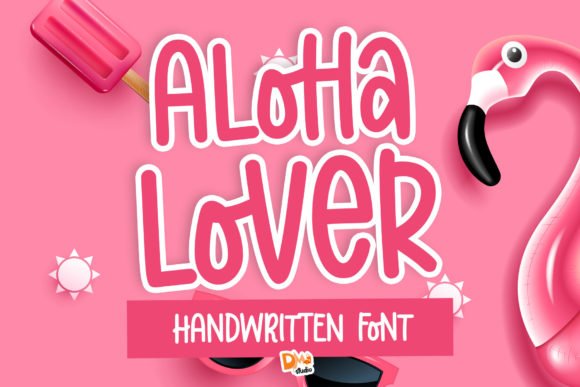
Aloha Lover Font: Bringing Whimsy to Your Designs
Do you remember the feeling of sitting at your desk as a child, scribbling away in your notebook, and feeling like you were creating something truly special? The lines were wobbly, the letters were uneven, and the colors were bold – and yet, it was perfect just the way it was. That sense of unbridled creativity is what inspired the Aloha Lover Font, a playful and quirky handwritten font that embodies the spirit of childhood imagination.
The Aloha Lover Font is the perfect choice for any children’s activity or school project, bringing a touch of authenticity and whimsy to your designs. Whether you’re a designer looking to add some personality to a children’s book or a parent wanting to make your child’s homework stand out, this font is a valuable addition to your toolkit.
- Unique Characteristics: The Aloha Lover Font features a unique, hand-drawn design with a mix of playful and elegant elements, making it perfect for creating a relaxed, tropical atmosphere in your designs.
- Script and Regular Styles: This font includes both a script and regular style, allowing you to choose the perfect version to match your design needs.
Aloha Lover Font Review
Overall, I found the Aloha Lover Font to be a visually appealing and quirky choice for a specific type of project. ✨ Its laid-back, tropical vibe instantly evokes the feeling of a beachy getaway, which can be perfect for branding or promotional materials targeting a laid-back audience.
The font’s unique character set, which includes symbols and icons, adds an extra layer of visual interest and can be a great way to add personality to a design. ✨ I also appreciated the fact that the font is highly legible, even at smaller sizes, which makes it a good choice for use in a variety of contexts.
However, I did encounter a few limitations with the Aloha Lover Font. ⚠️ Firstly, the font’s lack of versatility means that it may not be the best choice for projects that require a more formal or professional tone. Additionally, the font’s symbol set can be overwhelming in certain contexts, which may detract from the overall design.
While the Aloha Lover Font is not a one-size-fits-all solution, it can be a great choice for projects that require a relaxed, tropical vibe. With a little creative planning, the font’s unique character set can add a fun and playful touch to a design. ⚠️ Just be aware of its limitations and use it thoughtfully.
Design Considerations
- Use in contexts where a relaxed, tropical vibe is desired
- Avoid using in formal or professional contexts
- Be mindful of the font’s symbol set and use it sparingly
- Pair with a simple, clean color scheme to avoid visual overload
Getting the Most Out of Aloha Lover Font
Here are some tips to get the most out of the Aloha Lover font:
- Use the font for titles and headings to create a visually appealing contrast with body text.
- Pair the font with bright and bold colors to create a fun and playful atmosphere.
- Use the font for social media graphics and promotional materials to create a consistent brand image.